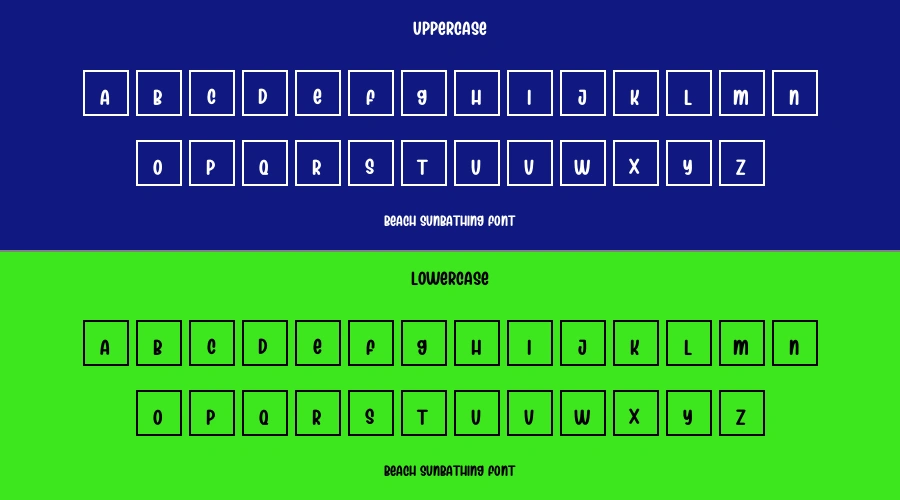
About Beach Sunbathing Font
Designed with precision, Beach Sunbathing Font merges bold expressions with flexibility in every character. This versatility makes it particularly effective for packaging hero, where craftsmanship and market confidence directly impact communication quality. Each letterform demonstrates meticulous craftsmanship.
Technical excellence shines through elements like harmonic curves and terminal forms, enhancing typographic versatility. In book chapters settings, Beach Sunbathing Font proves its worth through superior emotional response. The thoughtful execution of joint detail and professional recognition ensures professional results.